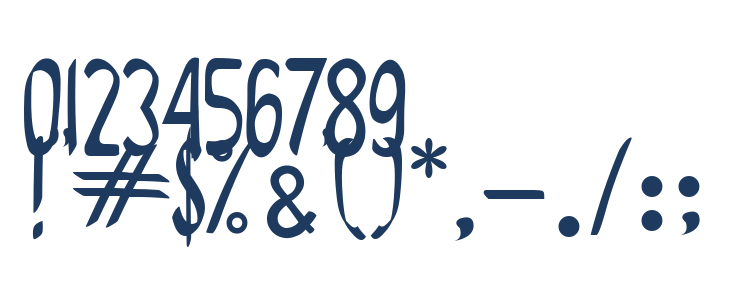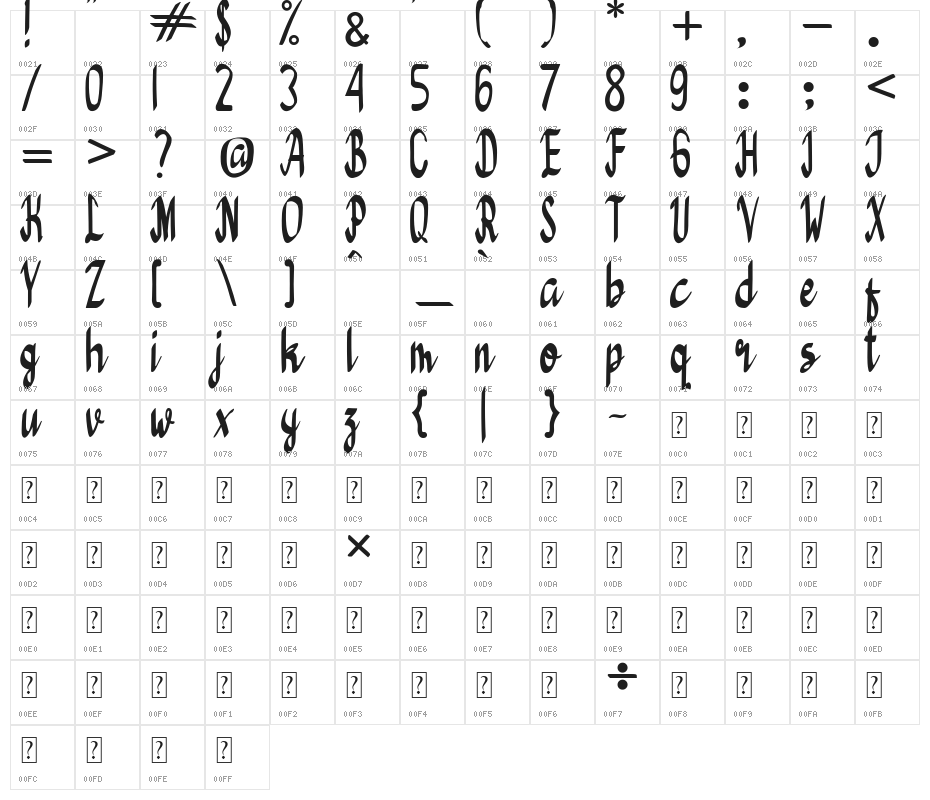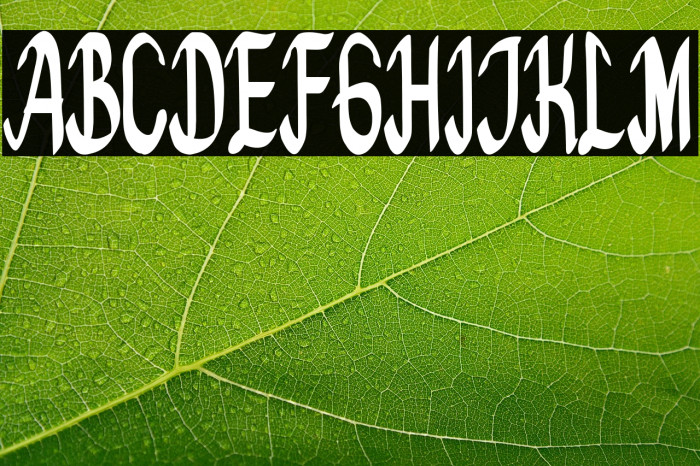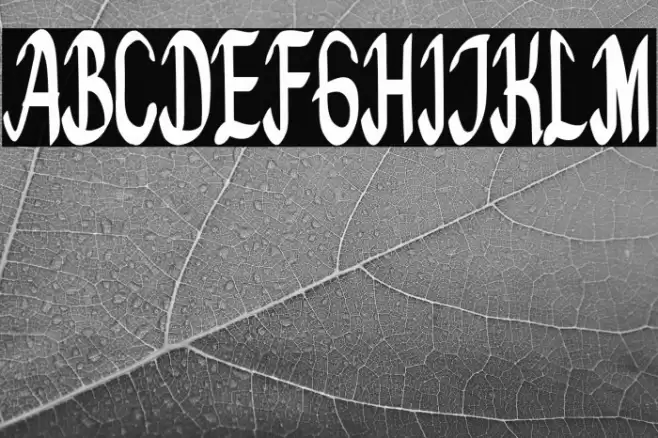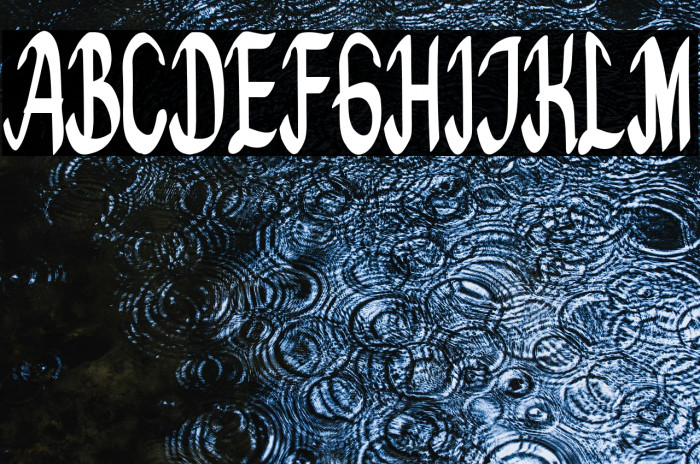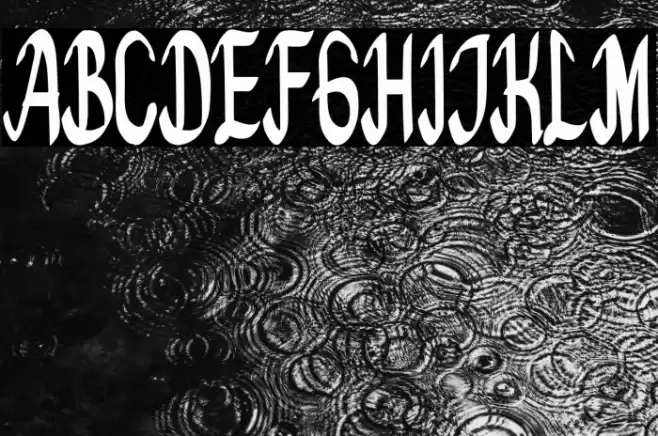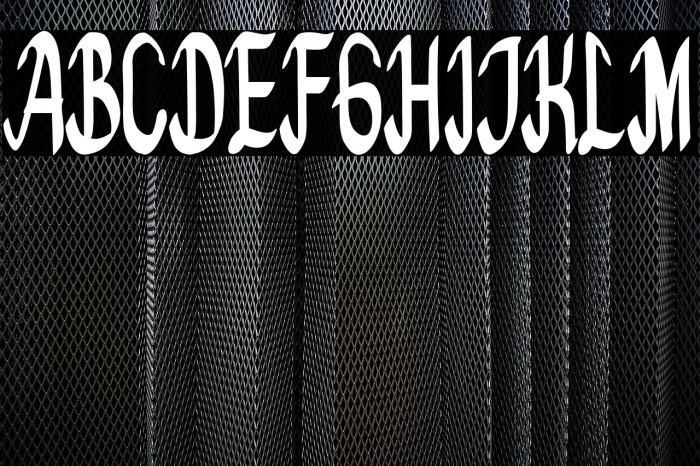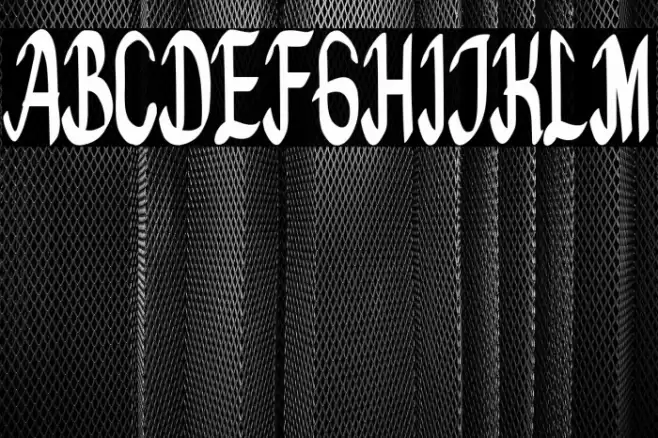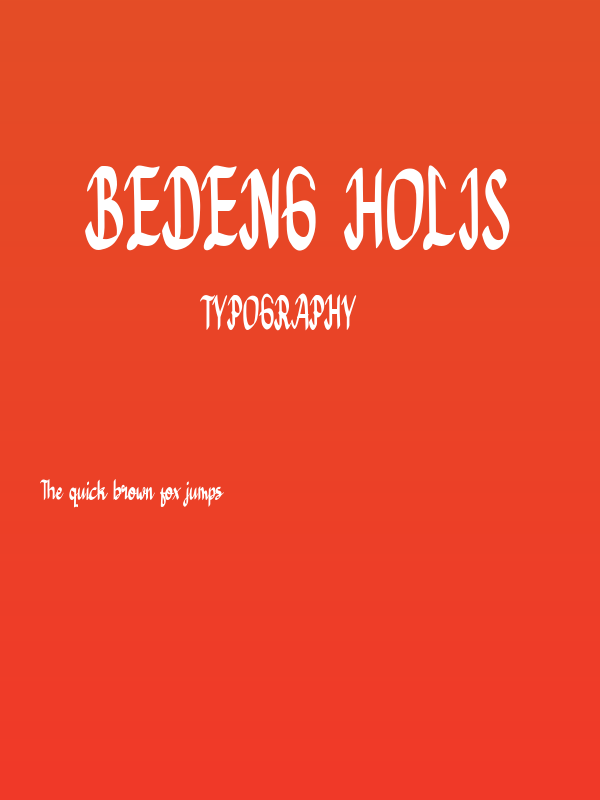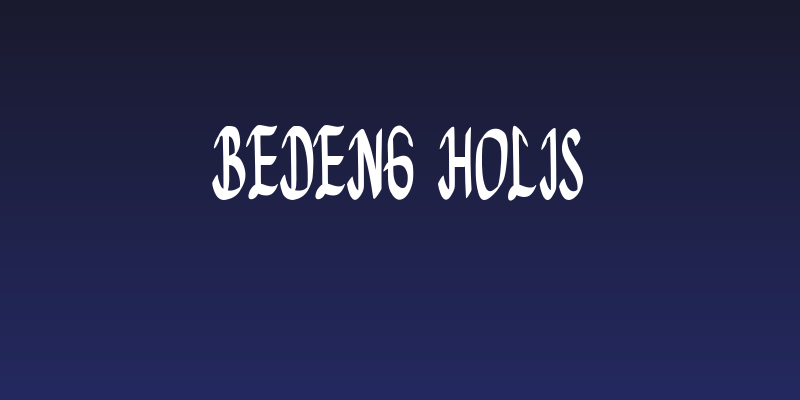
Bedeng Holis Font
Bedeng Holis Description
This font features a bold and expressive style with a handwritten feel. The characters are elongated and slightly slanted, giving a dynamic and energetic appearance. The uppercase letters are tall and narrow, while the lowercase letters maintain a consistent flow with rounded edges. Numbers and special characters follow the same stylistic cues, ensuring uniformity across the typeface. The overall design is playful yet sophisticated, making it suitable for creative projects that require a personal touch.
| Proposed Projects | Ideal for branding, posters, invitations, and any project that benefits from a personal, artistic touch. |